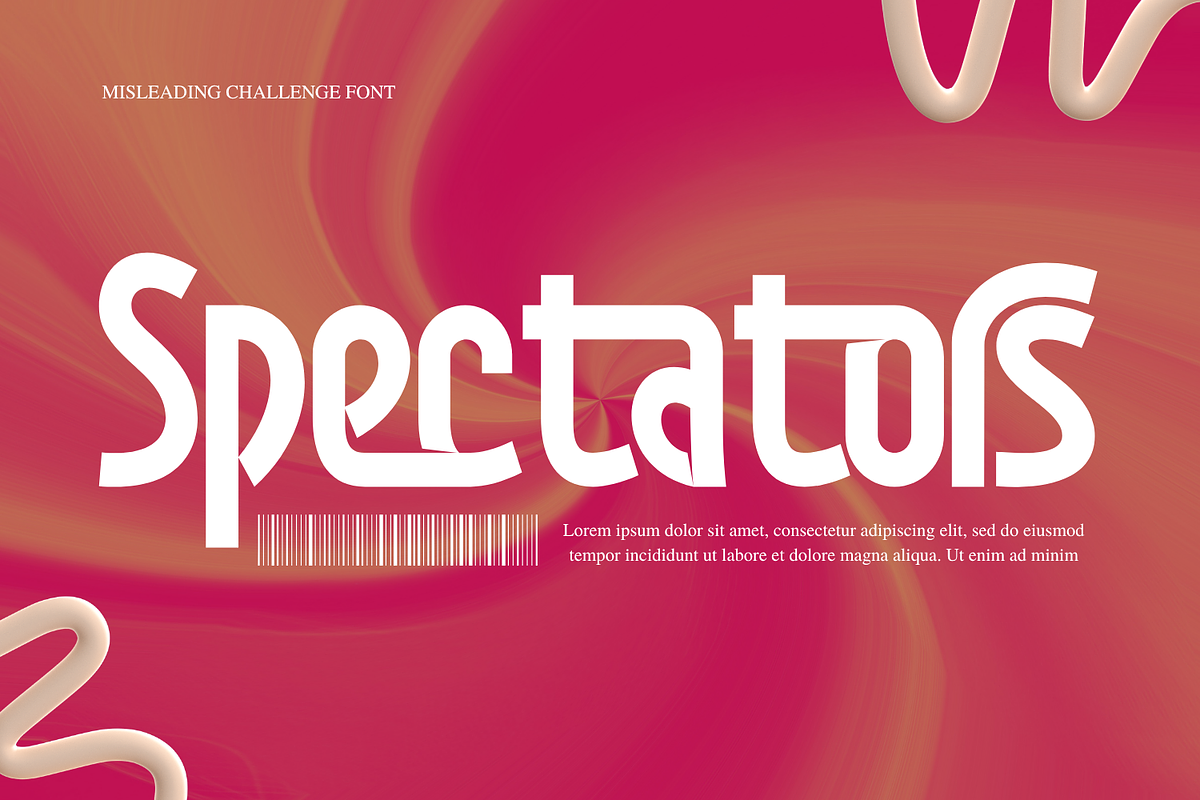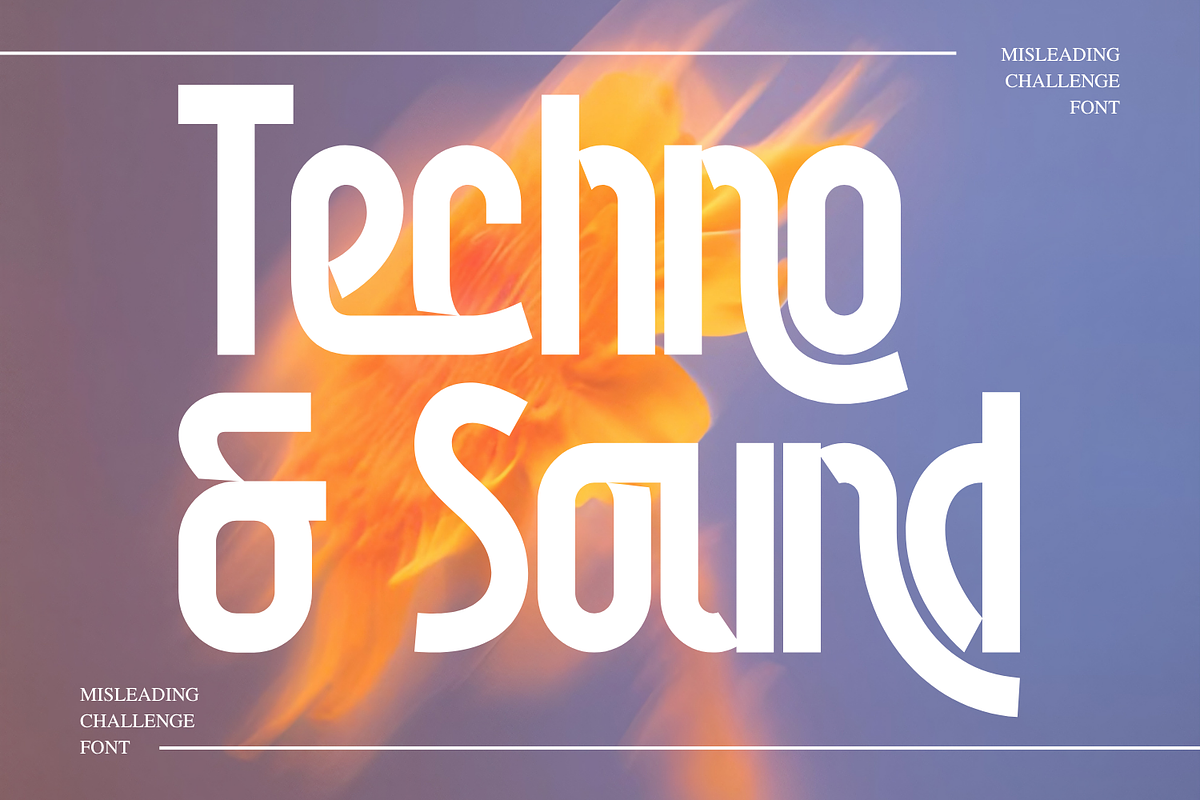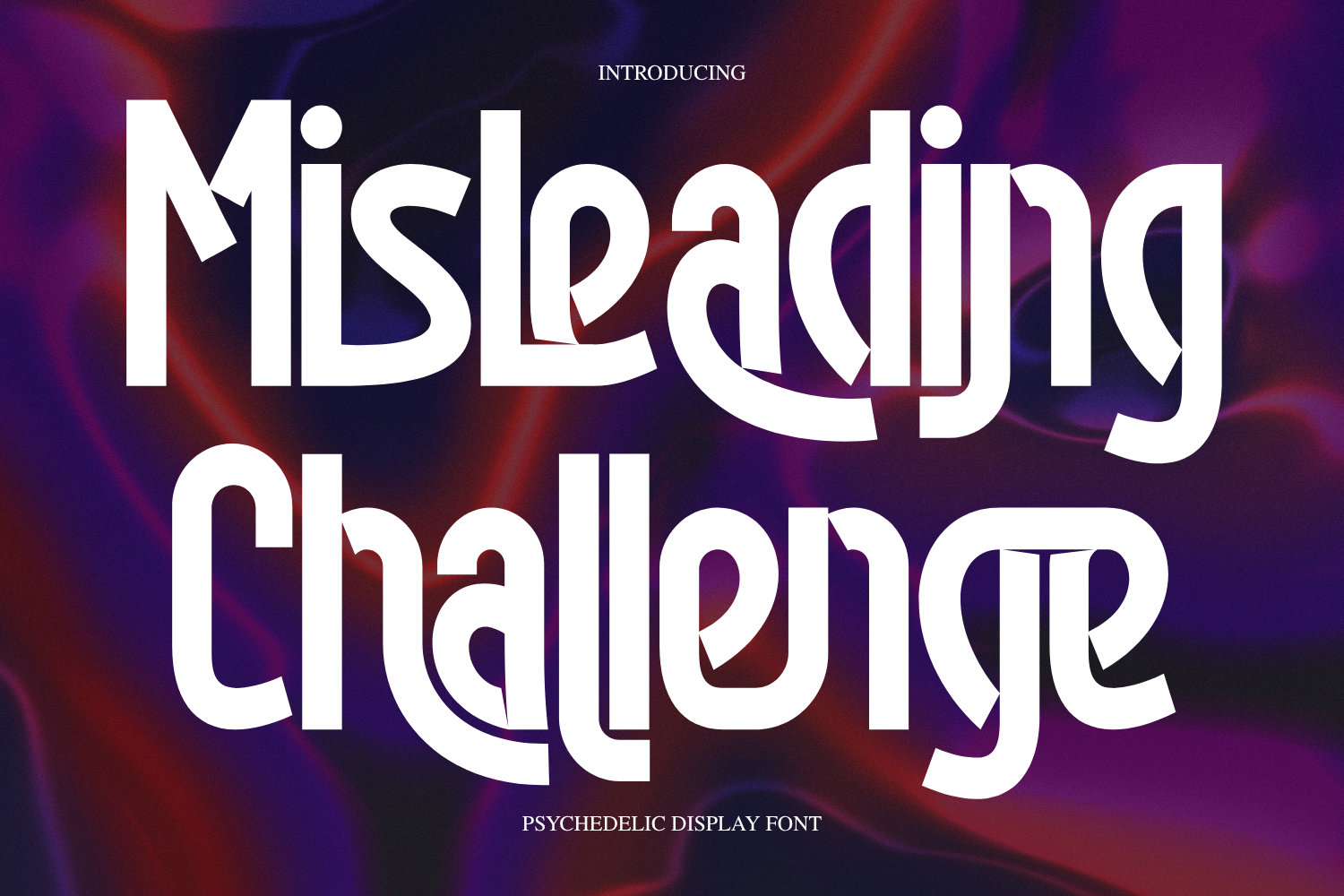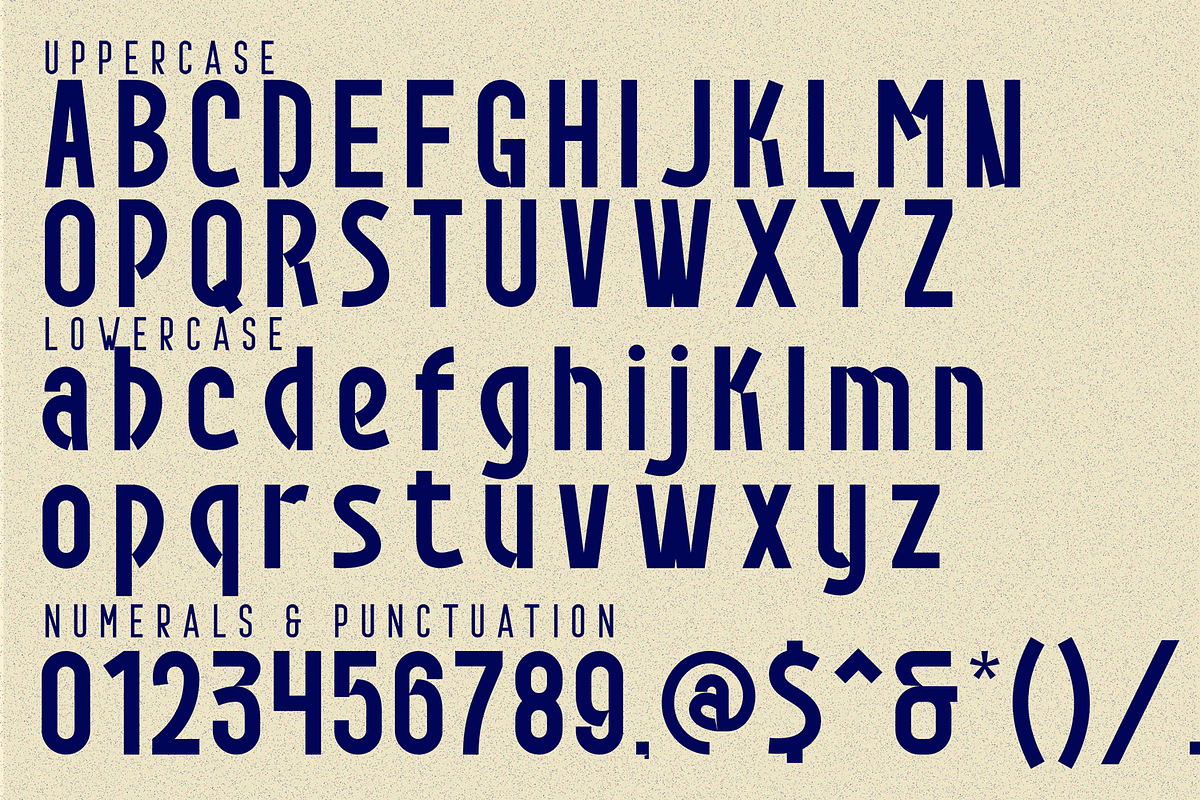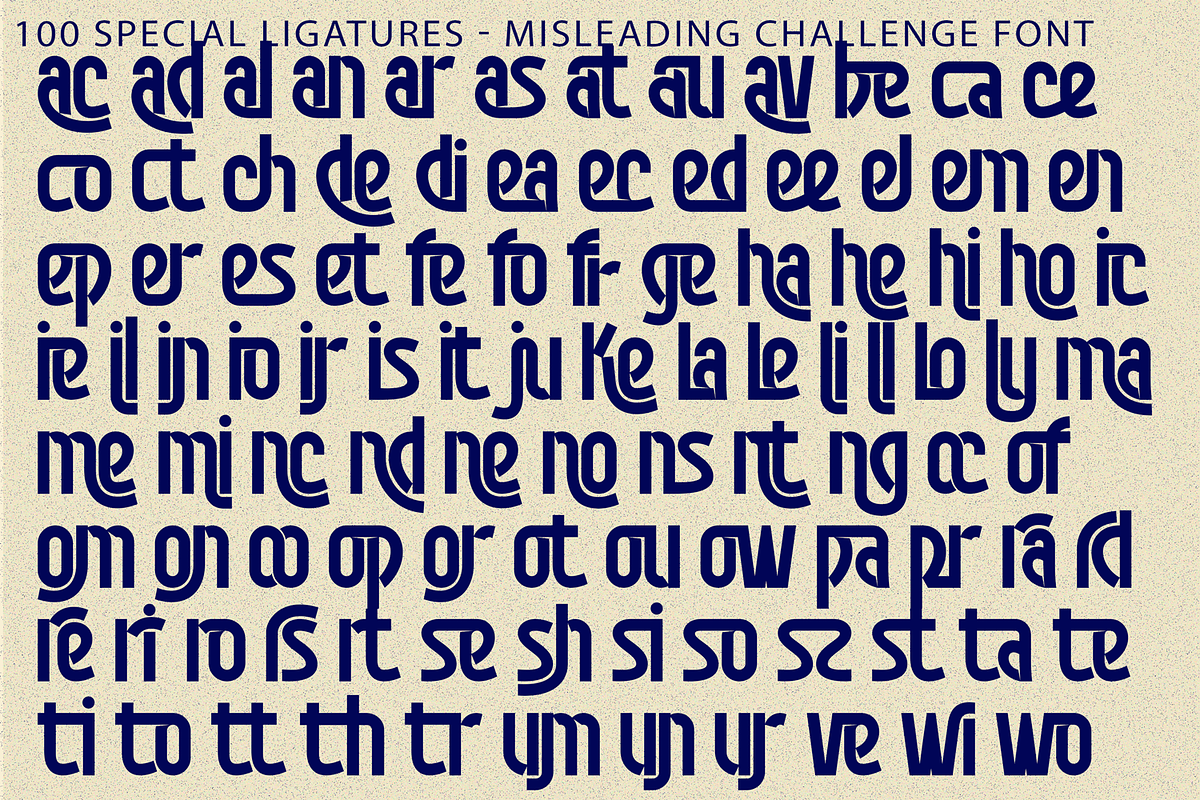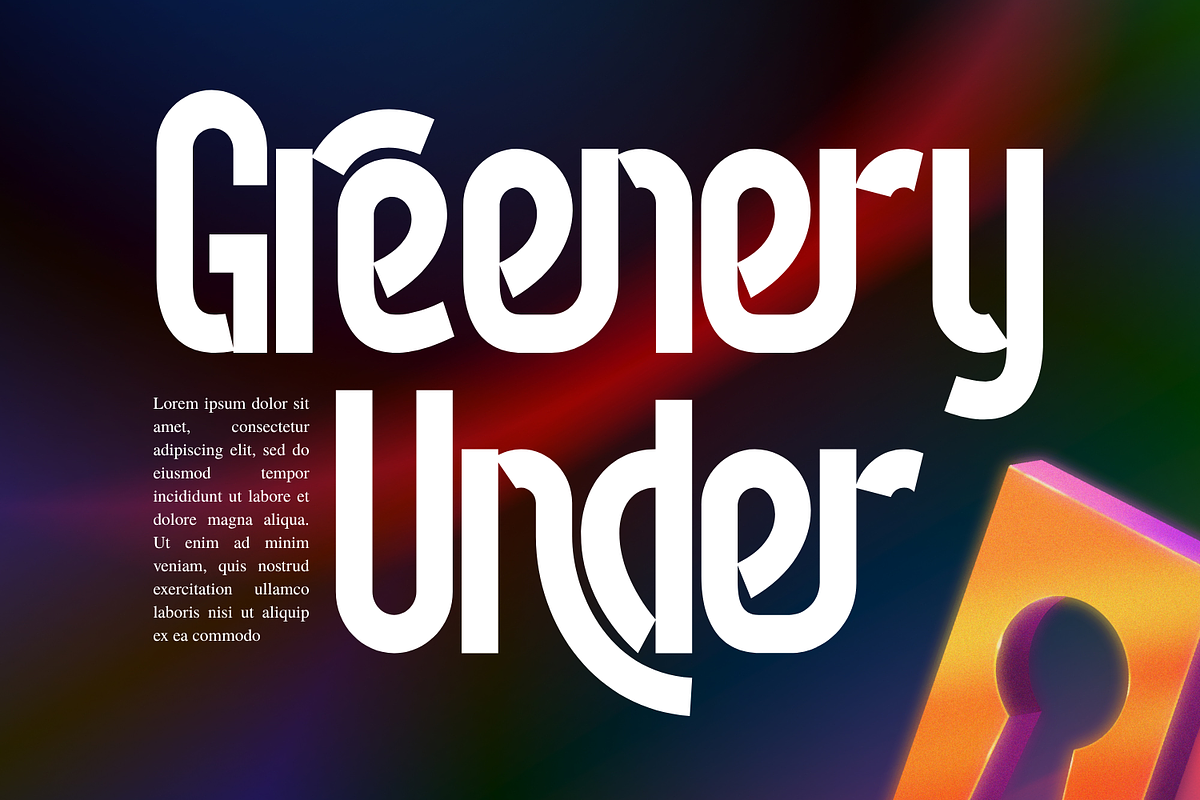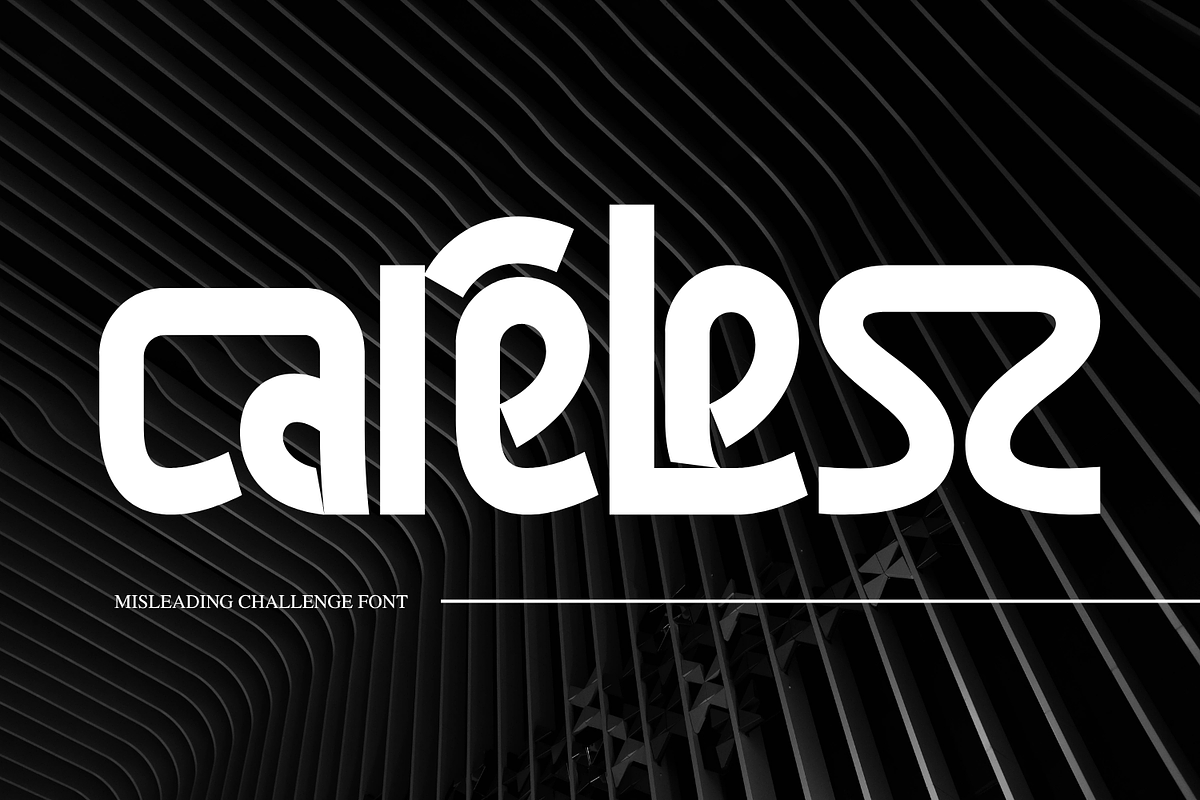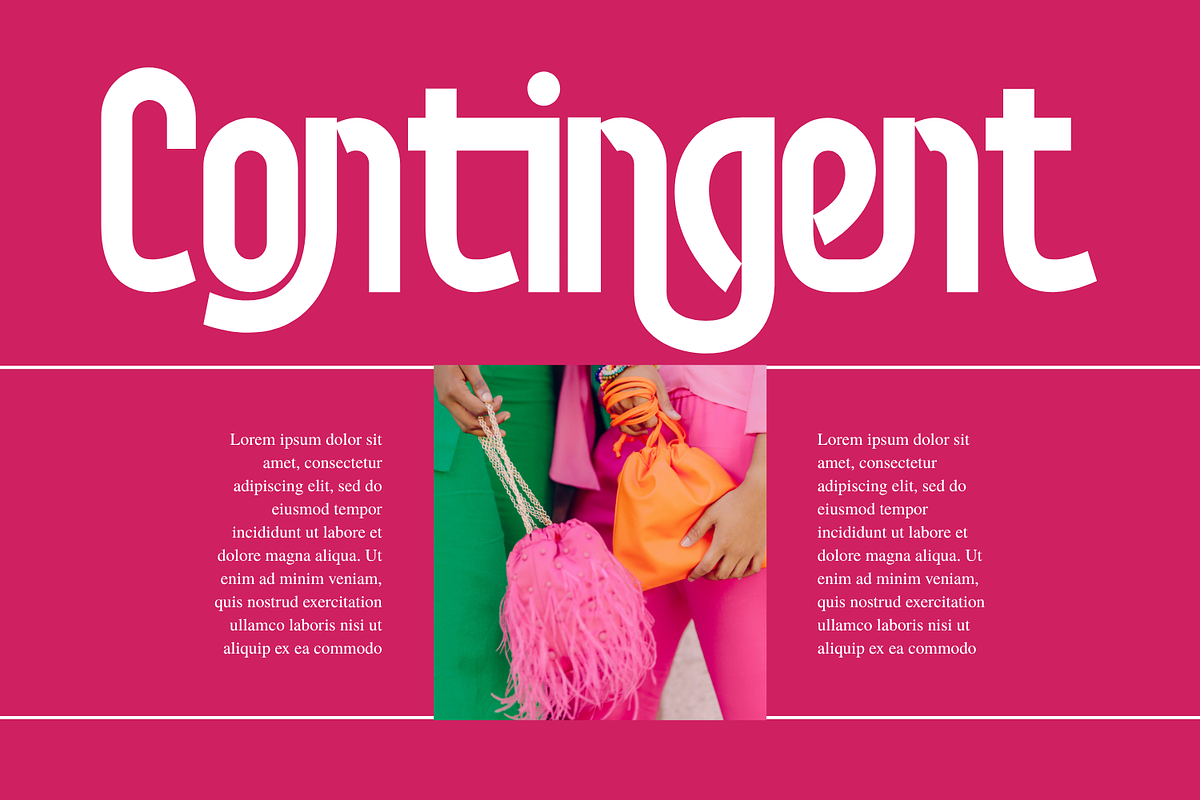
Misleading Challenge Font
Misleading Challenge Font – Experimental Psychedelic & Fluid Curved Display Font is a bold experimental display typeface that explores the intersection of geometric structure, unconventional letterforms, and contemporary visual expression. Built with strong proportions and distinctive sculptural shapes, the typeface combines smooth rounded curves with sharp cuts, angular terminals, extended strokes, and unexpected details that give every character its own striking personality.
Its tall forms and substantial weight create an immediate visual presence, while asymmetrical constructions and dramatic negative spaces bring a playful sense of movement to the design. Rather than following the conventions of a traditional sans serif, Misleading Challenge embraces unusual proportions and abstract geometry, resulting in typography that feels modern, futuristic, artistic, and confidently unconventional.
🔤Features:
Uppercase & Lowercase Letters
Around 100 Special Ligatures & Alternates
Accented Characters for multilingual support
🔤About 100 ligatures combined with Stylistic Alternates Font:
ac ad al an ar as at au av be ca ce ch co ct de di ea ec ed ee el em en ep er es et fe fo fr ge ha he hi ho ie ic il in io ir is it ju ke la le li ll lo ly ma me mi nc nd ne ng no nt ns oc of om on oo op or ot ou ow pa pr ra rd re ri ro rs rt se sh si so ss st ta te th ti to tr tt um un ur ve wi wo